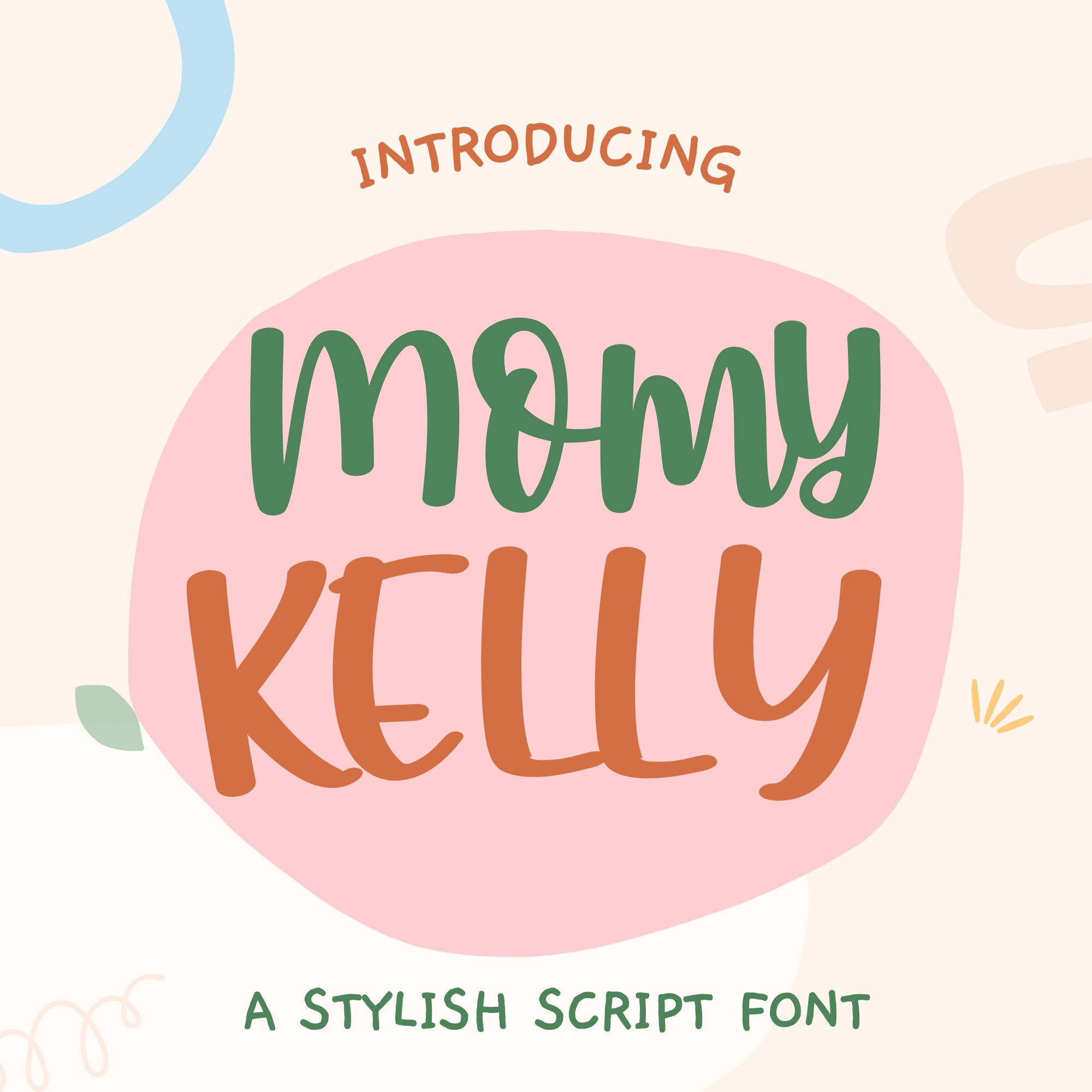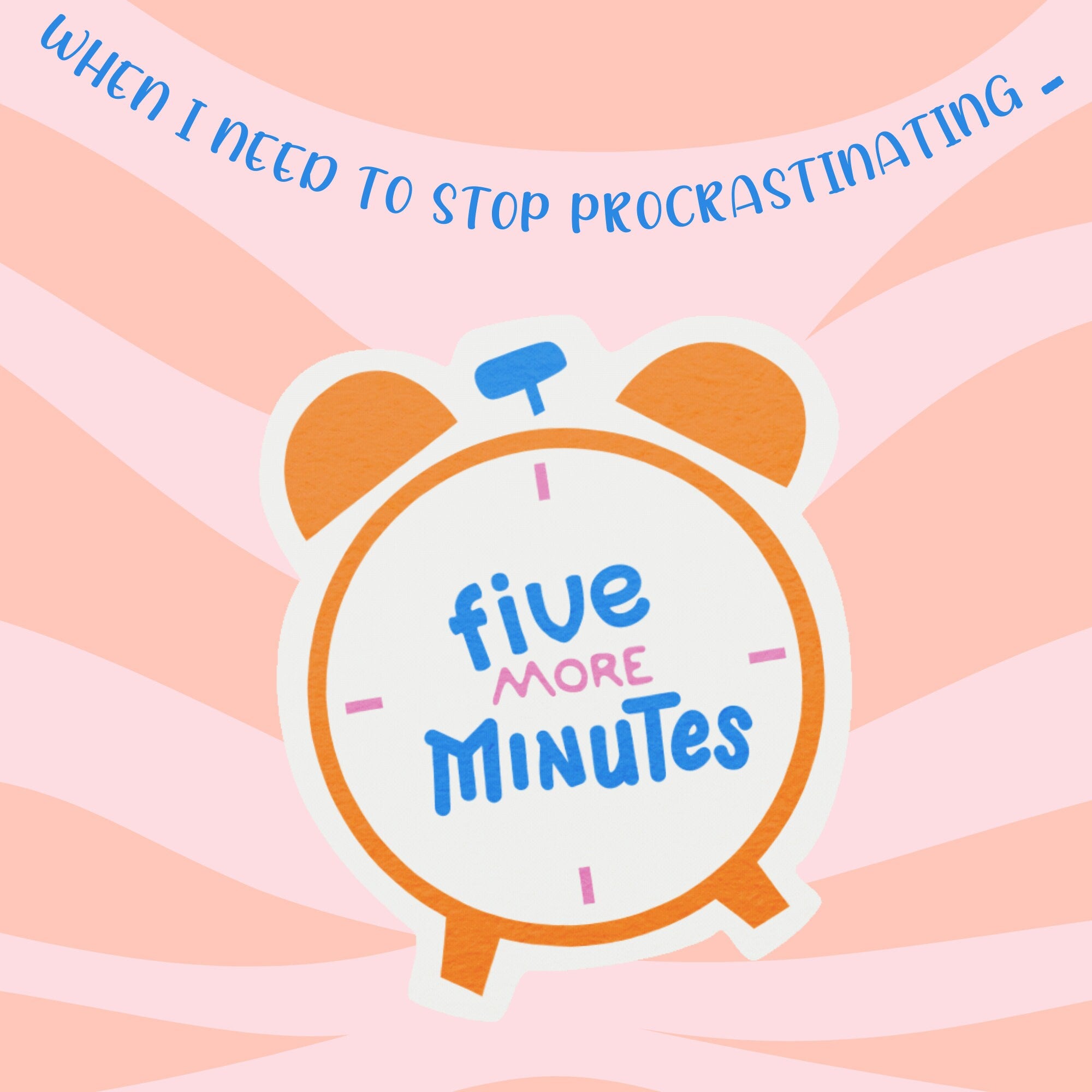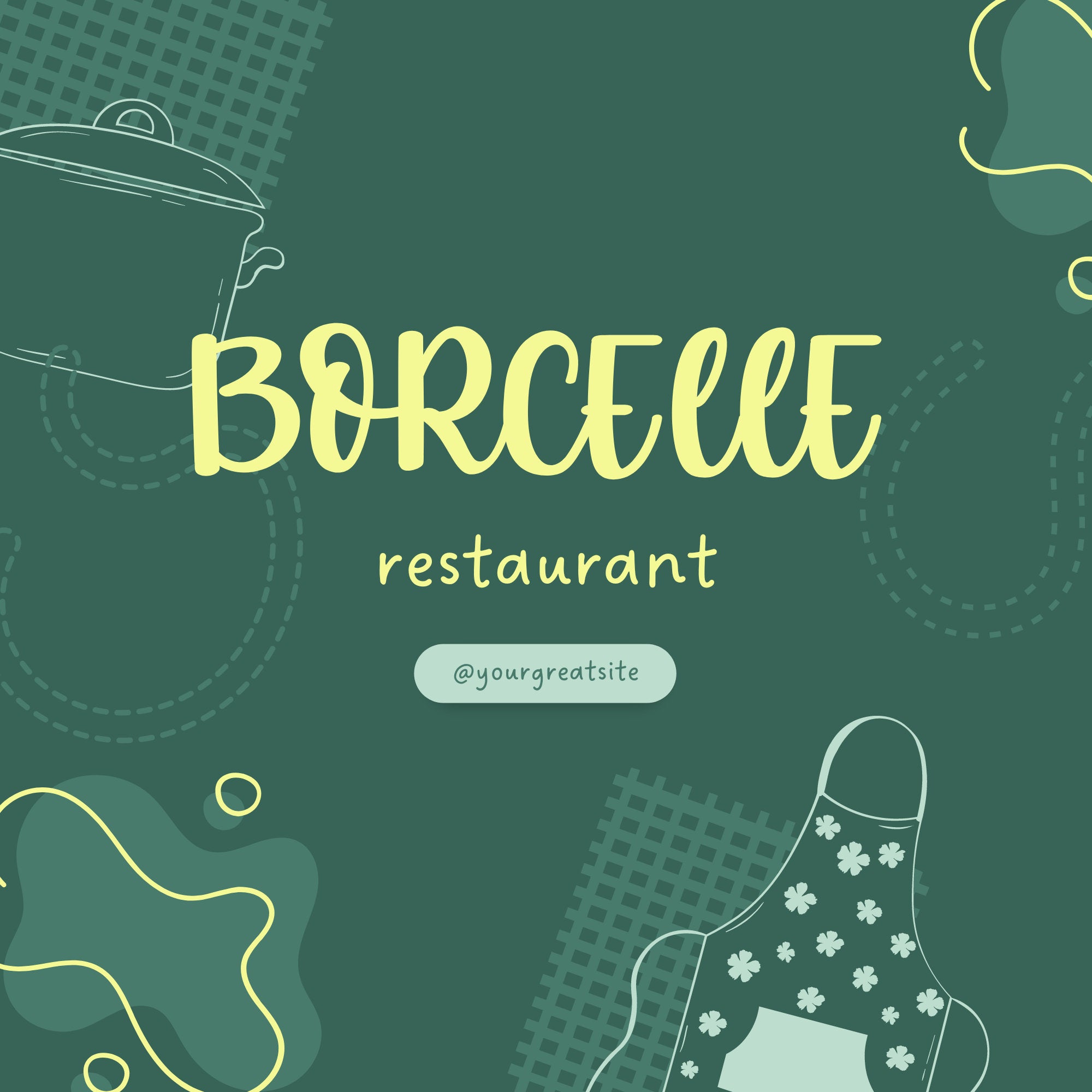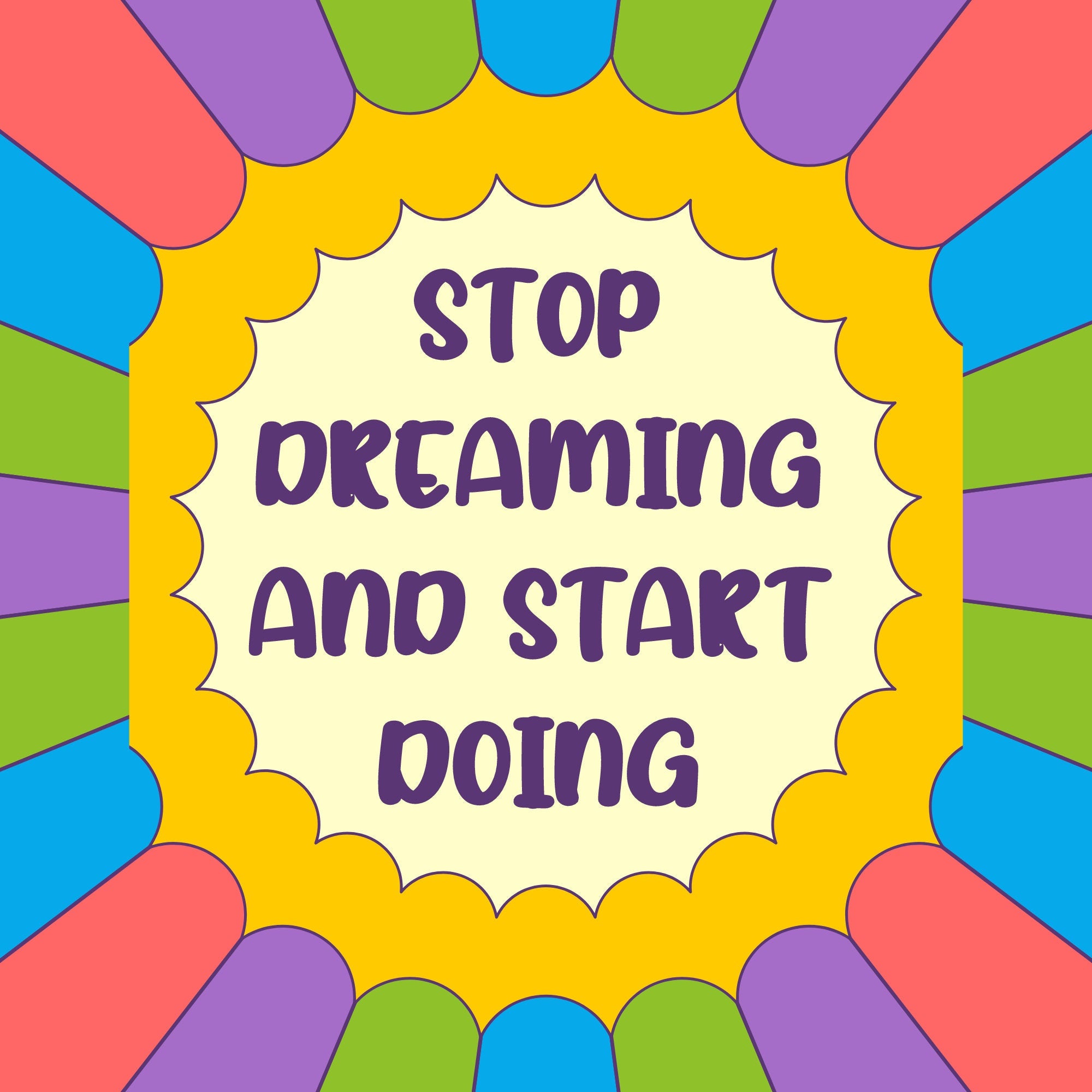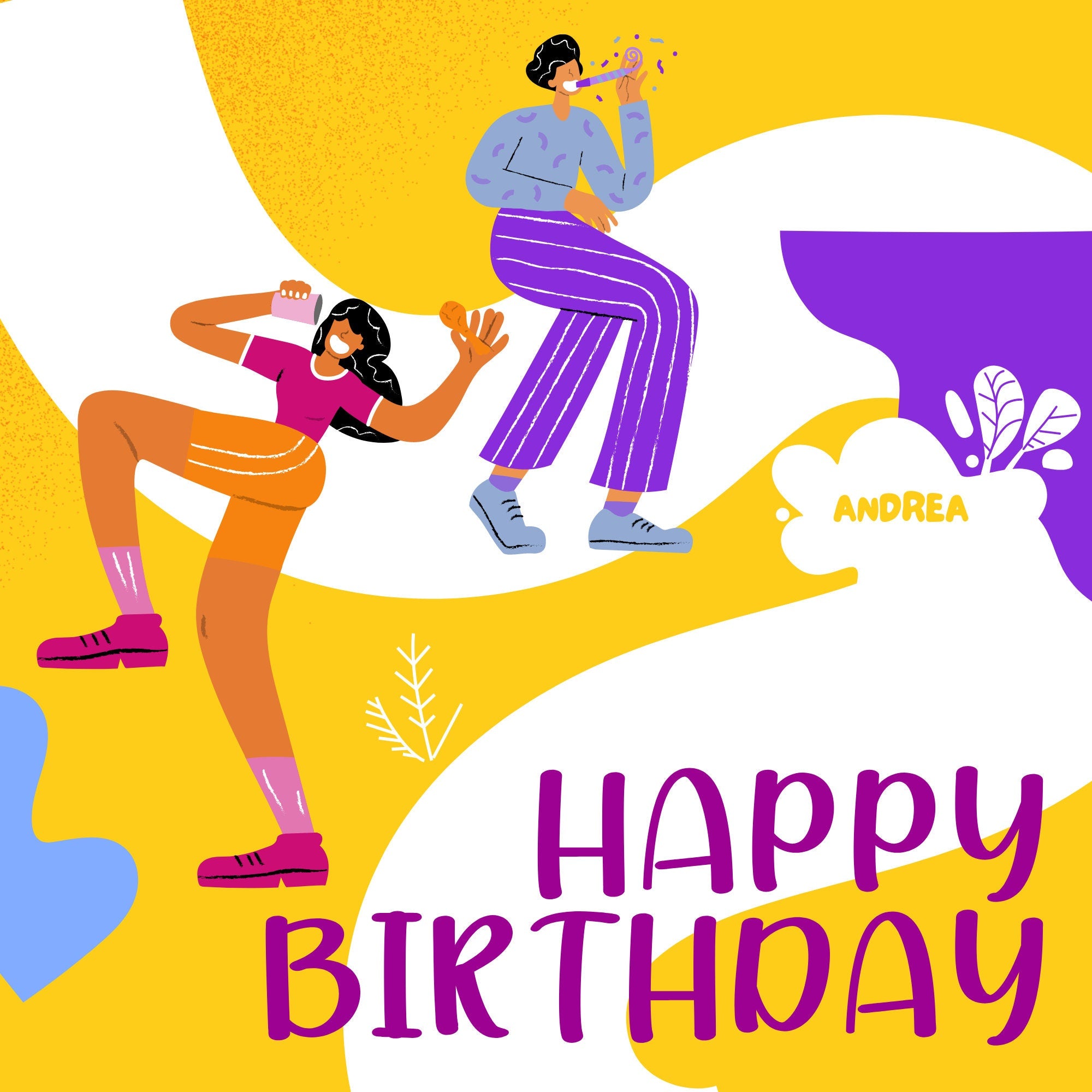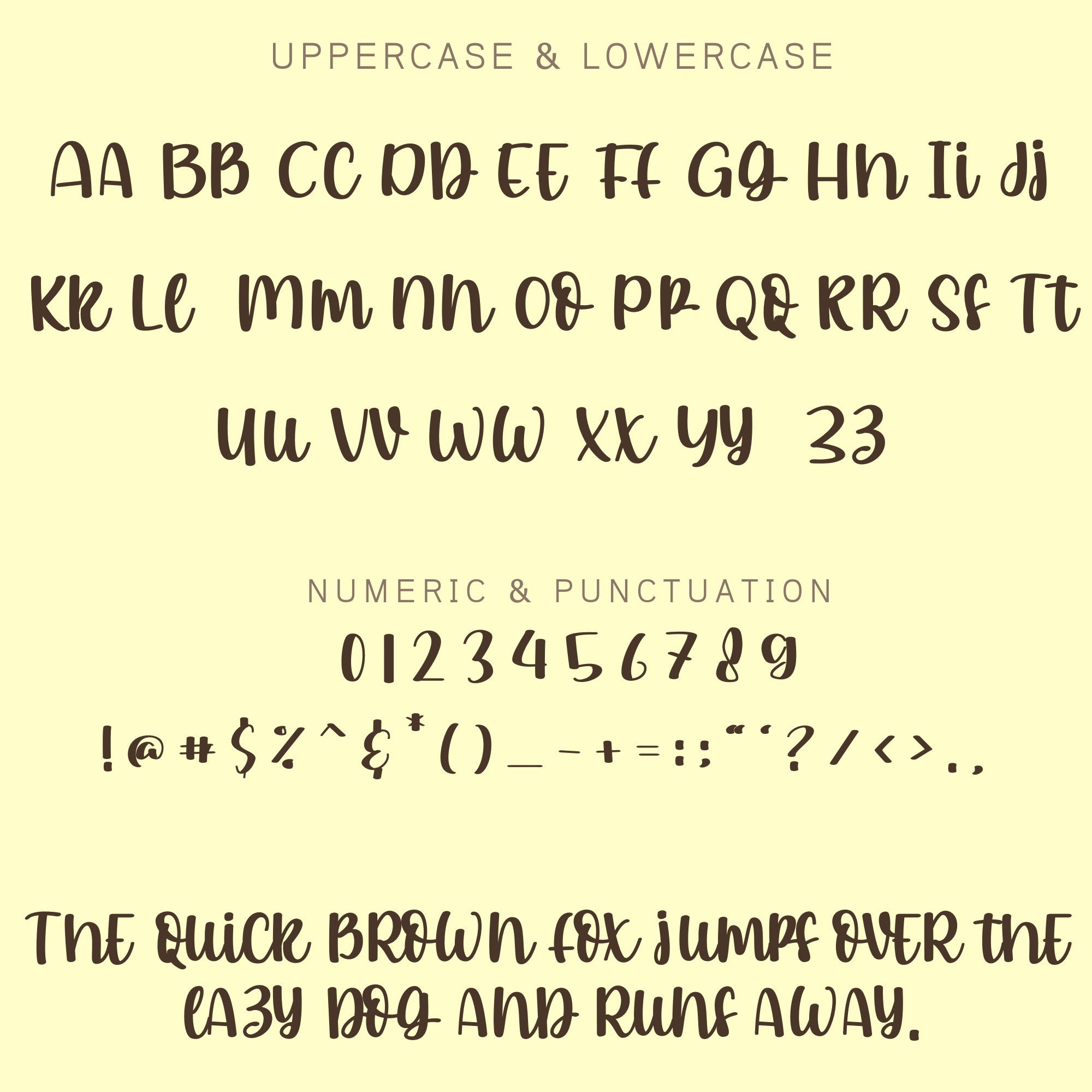
Momy Kelly Handwritten Script Font for Cricut Canva Procreate
Style Handwritten casual script with ligatures and alternates
Glyphs & language support Basic Latin, punctuation, numerals, stylistic alternates and private-use glyphs